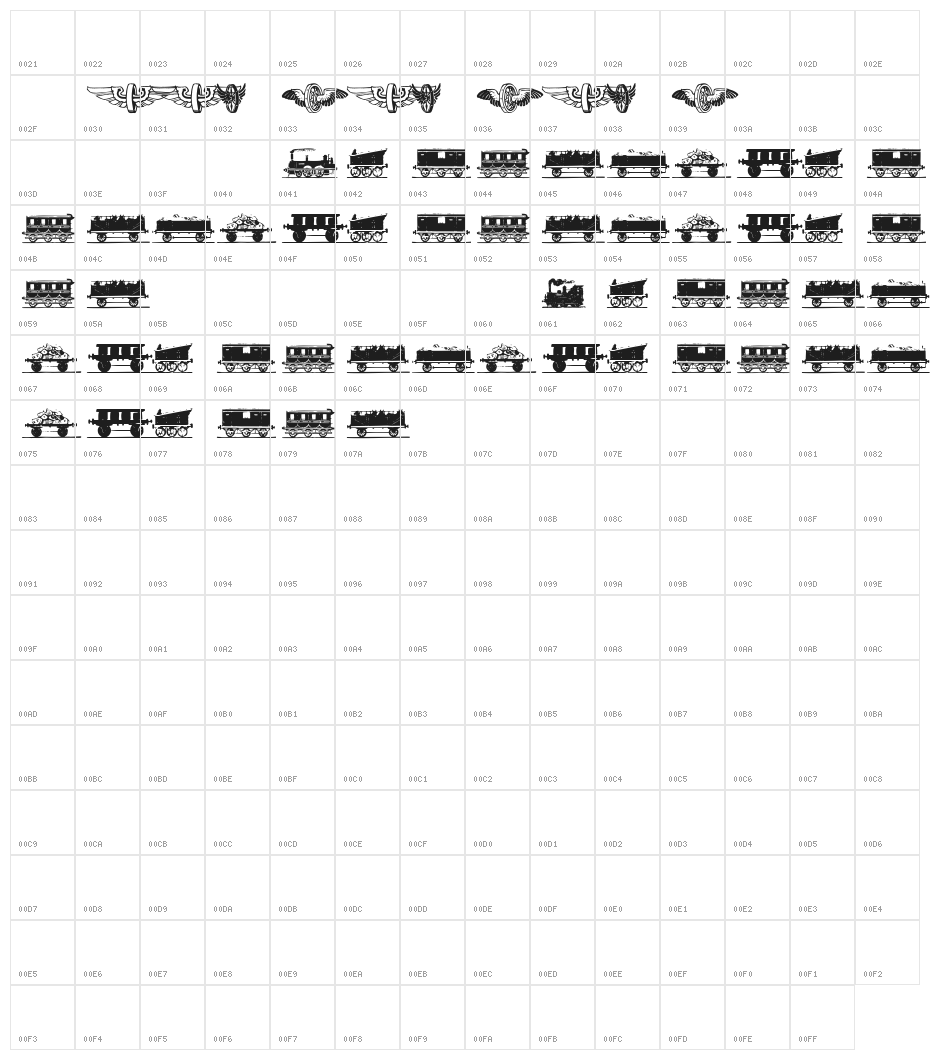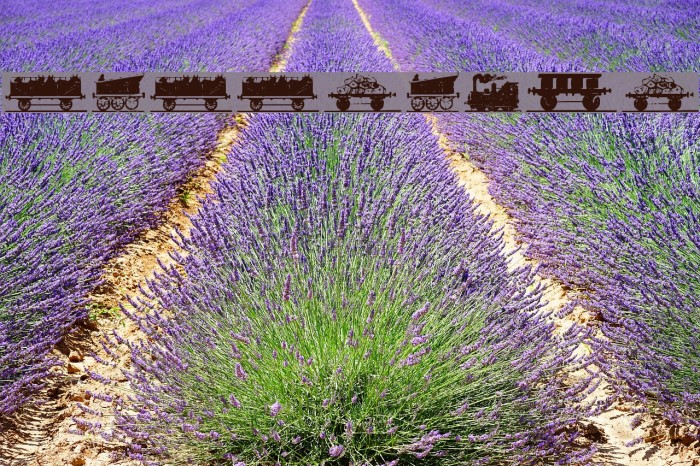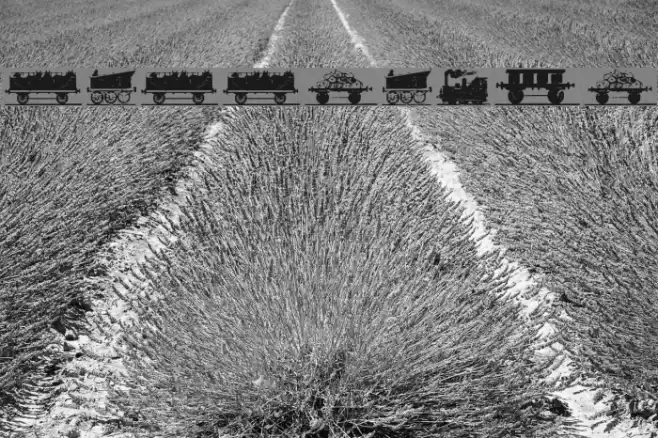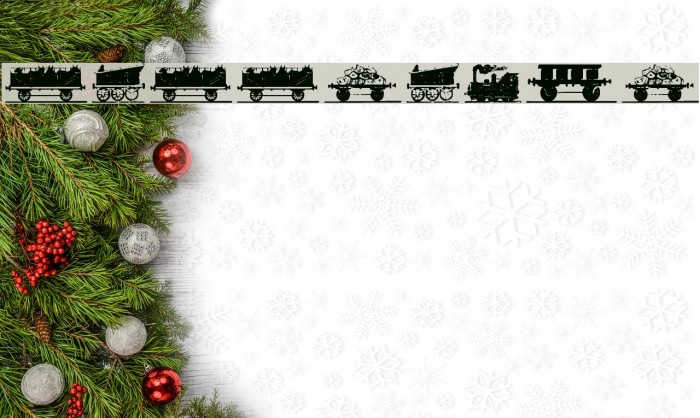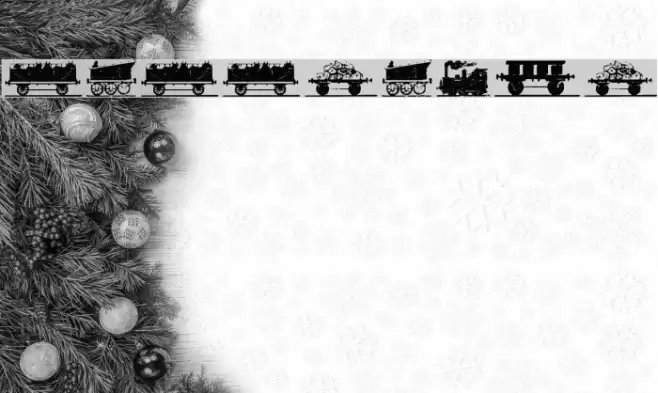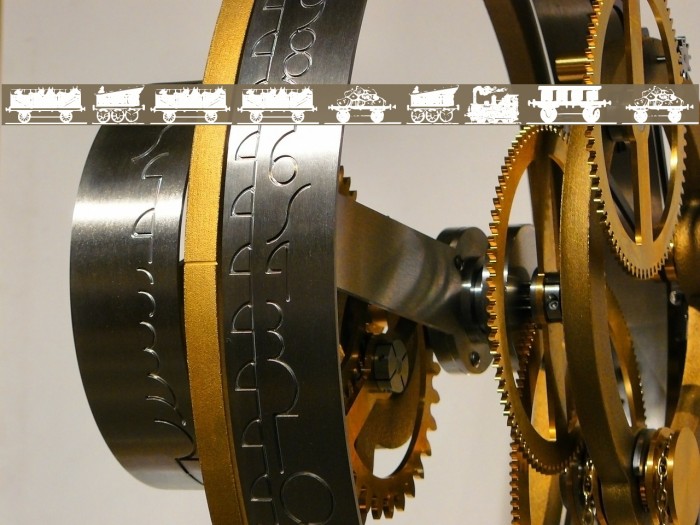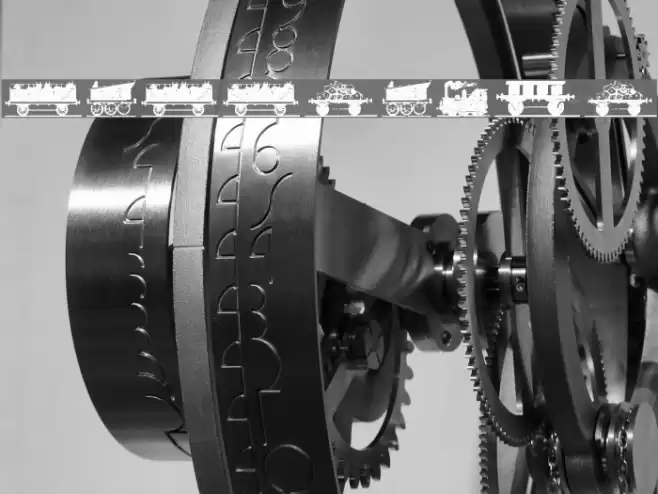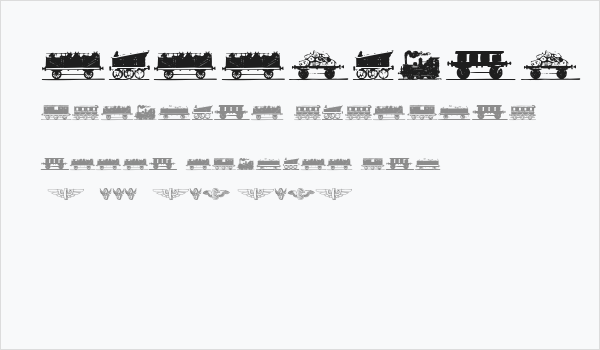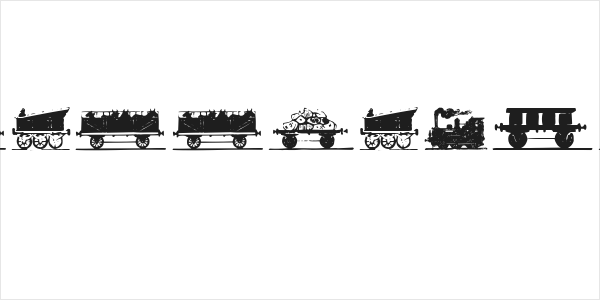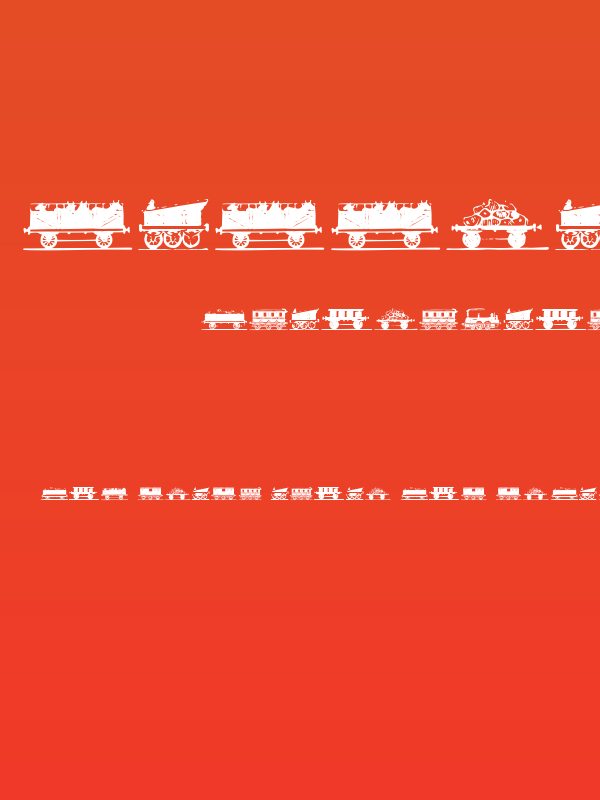
Eisenbahn Font
Eisenbahn Description
This is not a traditional font but rather a series of decorative train illustrations. Each character is represented by a different train car or locomotive, creating a unique and thematic visual style. The designs are detailed and intricate, capturing the essence of vintage trains with elements like steam engines and coal cars. This set is more of a pictorial representation than a typographic font, making it suitable for specific decorative purposes rather than standard text usage.
| Use Case | Decorative elements, Themed designs |
| Proposed Projects | Ideal for themed designs such as posters, invitations, or educational materials related to trains or transportation history. |